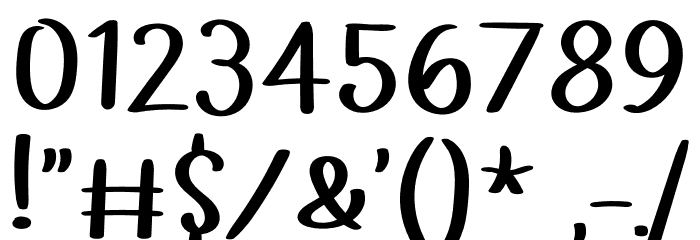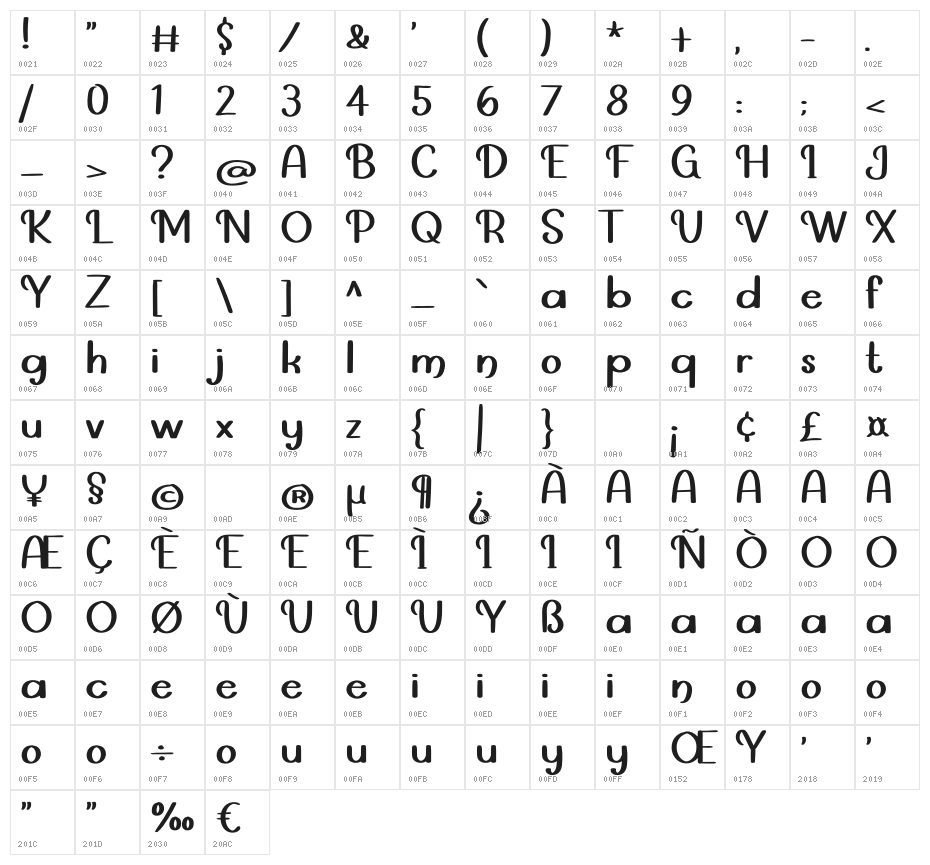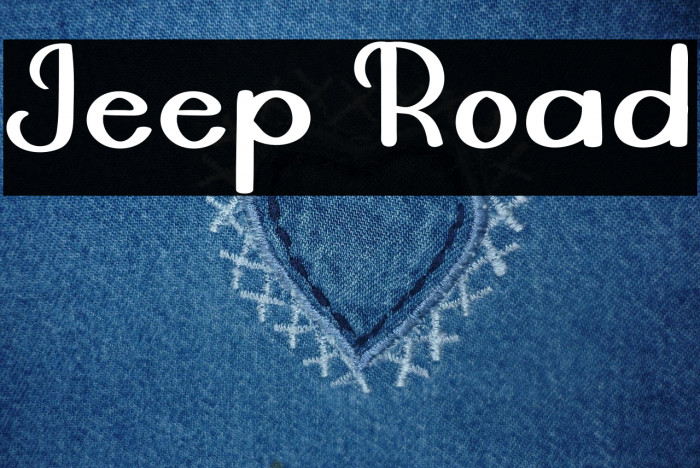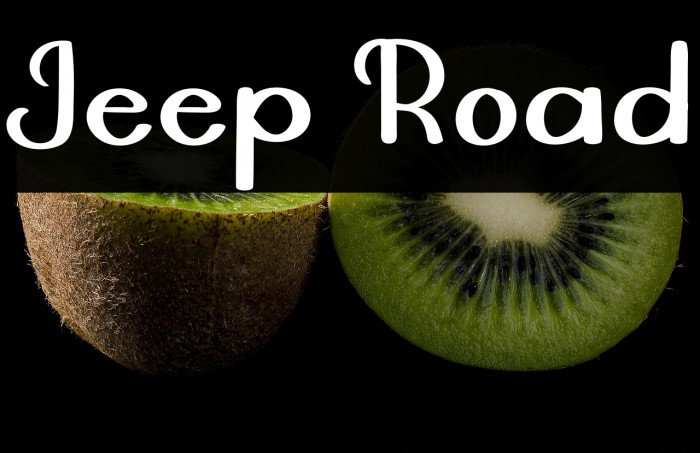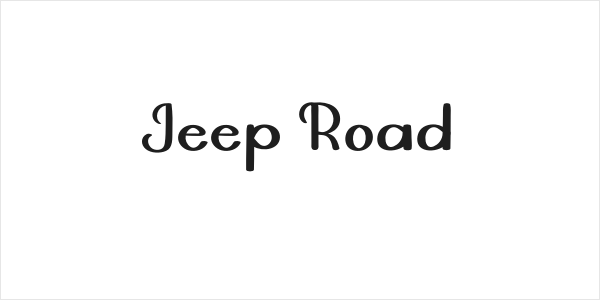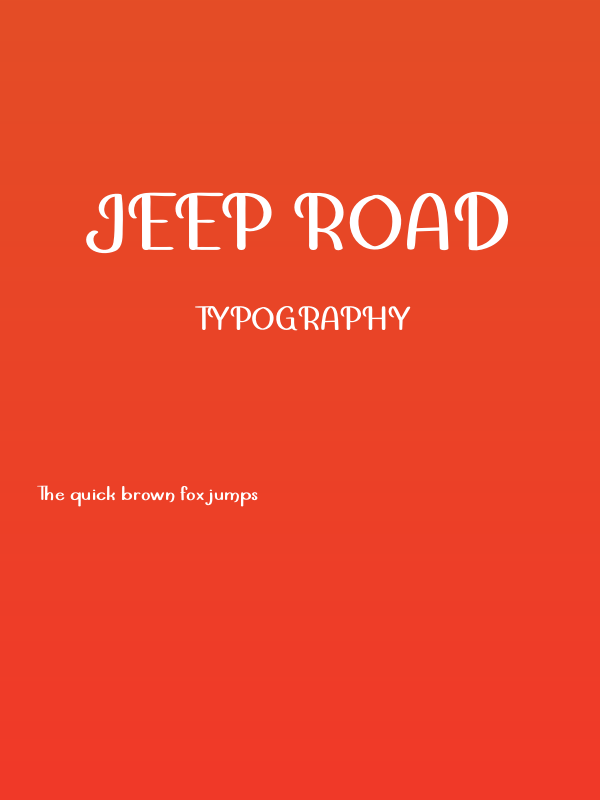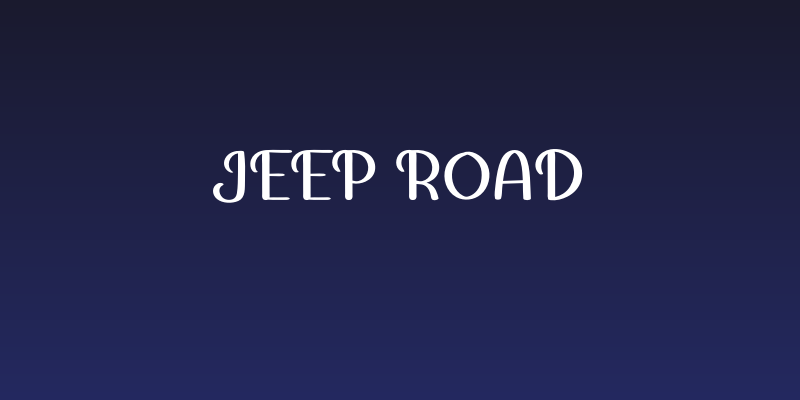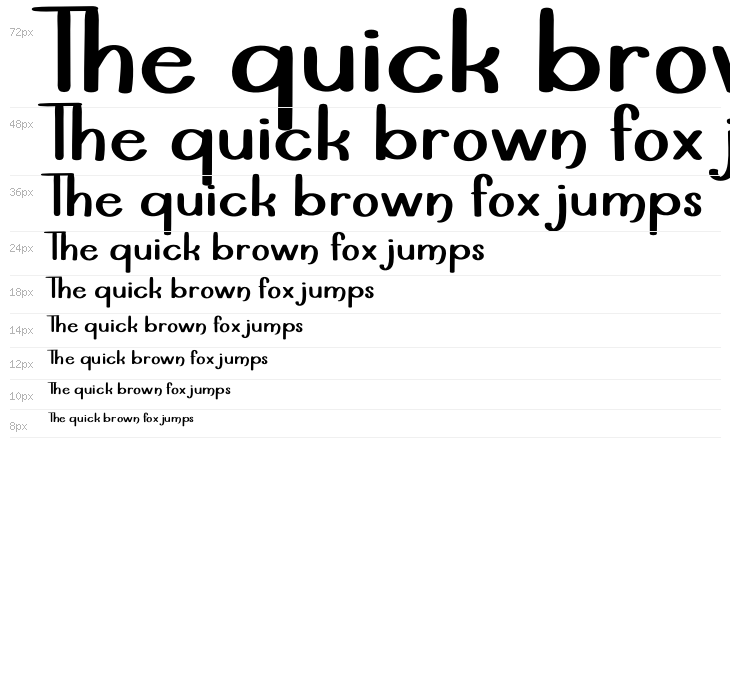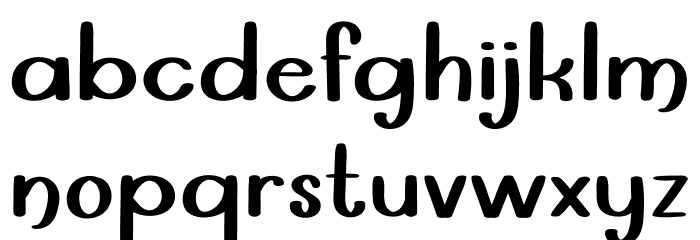
Jeep Road Font
Jeep Road Description
This font features a playful and rounded style with a handwritten feel. The characters are bold and slightly condensed, giving them a friendly and approachable appearance. The strokes are consistent in thickness, providing a uniform look across all characters. The uppercase letters are slightly taller than the lowercase, maintaining a balanced proportion. The numbers and special characters are designed to match the overall style, ensuring cohesion throughout. This font is versatile, making it suitable for a variety of creative projects.
| Proposed Projects | Ideal for children's books, playful branding, greeting cards, and casual invitations. |